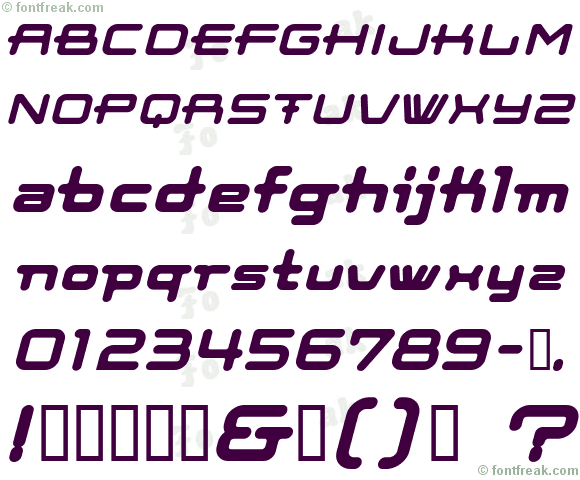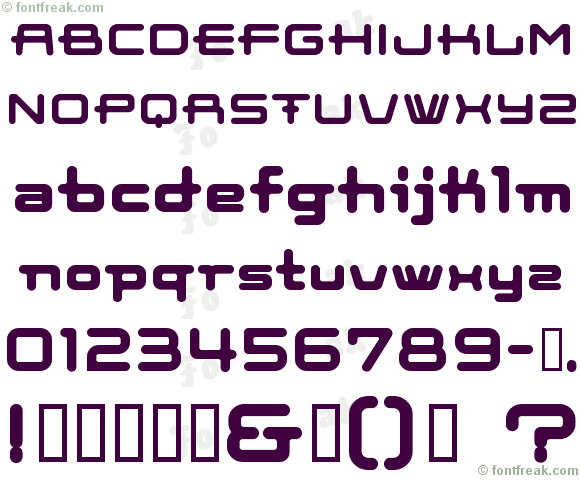
Cootnew Bold
Cootnew BoldItalic
Cootnew is a striking display font designed by Masato Shimojima and released by C-font in 2002. This bold typeface falls into the sans-serif category, characterized by its modern aesthetic and strong presence. The design features a balanced stroke weight, offering a clean and contemporary look that enhances readability while making a statement. Its geometric forms and well-defined lines contribute to a unique visual appeal, making it an excellent choice for various design projects. The spacing is thoughtfully executed, ensuring clarity and legibility even at larger sizes.
Given its bold and dynamic nature, Cootnew is perfect for use in wedding invitations, where its distinctive character can add a modern twist to traditional designs. It also shines in movie posters, helping to convey excitement and energy that draws attention. Additionally, restaurant menus can benefit from this font, providing a contemporary edge that complements a modern dining experience. Graphic designers and content creators will find Cootnew invaluable for branding projects, as its strong presence helps create memorable logos and promotional materials.
What sets Cootnew apart is its ability to blend boldness with elegance, making it versatile enough for a variety of applications. Its distinctive style not only captures attention but also retains a sense of professionalism, ensuring that it stands out in any context. Whether used for digital or print, Cootnew is a font that commands attention and leaves a lasting impression.